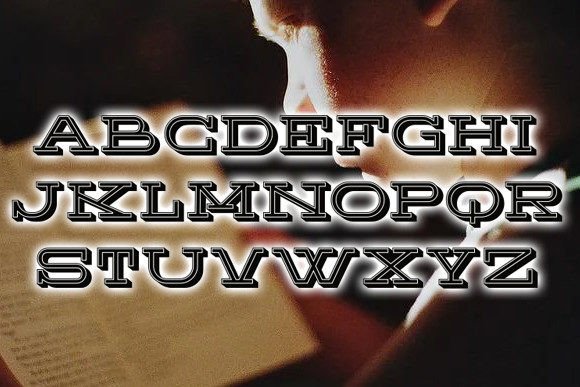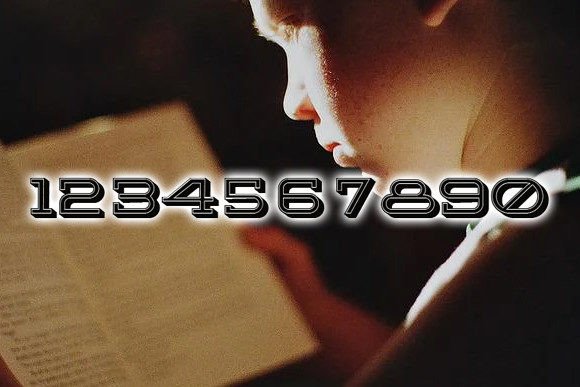
Sebastien Font: Vintage 3D Slab Serif for Bold Designs
Meet Sebastien – where vintage dignity meets contemporary impact. This remarkable 3D slab serif typeface commands attention with its dimensional depth and timeless character, making every word leap off the page or screen with authoritative presence.
Why Sebastien Stands Out
- Dimensional Mastery: True 3D extrusion effect
- Vintage Soul: Inspired by classic typography
- Versatile Weight: Reads perfectly at any size
- Instant Impact: Grabs attention effortlessly
Powerful Applications
Print Dominance
Ideal for:
- Concert posters
- Branded merchandise
- Magazine headlines
Digital Presence
Perfect for:
- Website hero text
- Social media banners
- YouTube thumbnails
🎨 Designer Tip: Layer the outline version over colored backgrounds for maximum 3D effect.
Perfect Pairings
- Industrial Edge: with Bank Gothic
- Retro Contrast: with Futura
- Modern Balance: with Proxima Nova